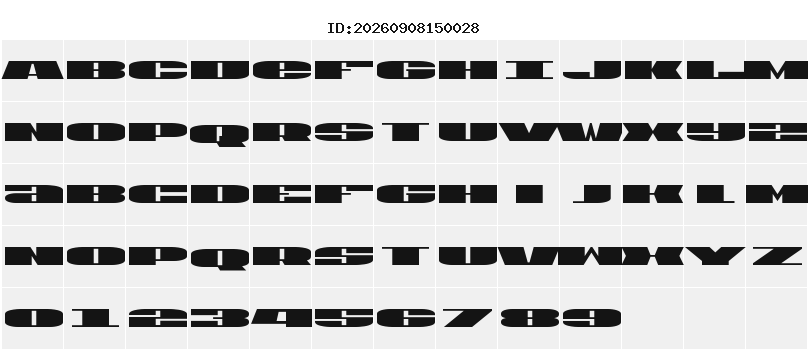
U.S.A. Expanded Preview
• Font Name: U.S.A. Expanded
• Font Style: Expanded
• Font ID: U.S.A. Expanded: 2016
• Full Font Name: U.S.A. Expanded
• Version: Version 3.0; 2016
• PostScript Name: U.S.A.Expanded
About U.S.A. Expanded.ttf
U.S.A. Expanded.ttf is a modern, elegant sans-serif font designed for ultimate readability and visual harmony. Perfect for branding, headlines, web design, and print materials.